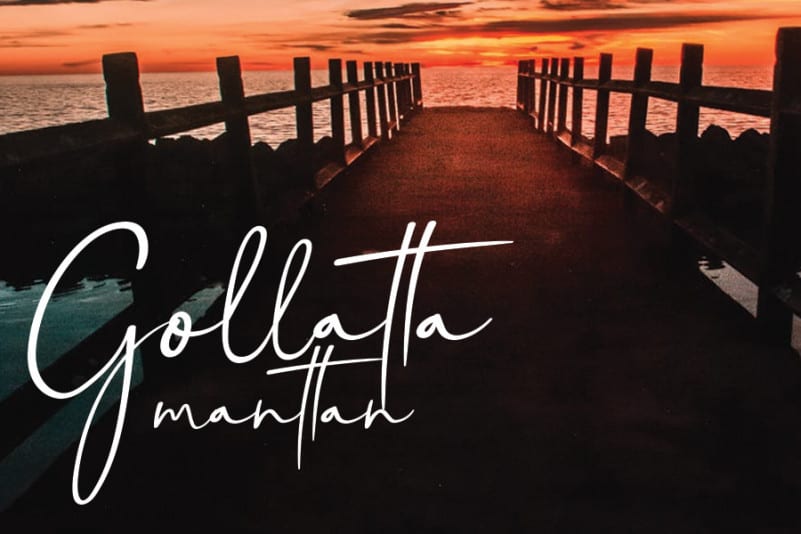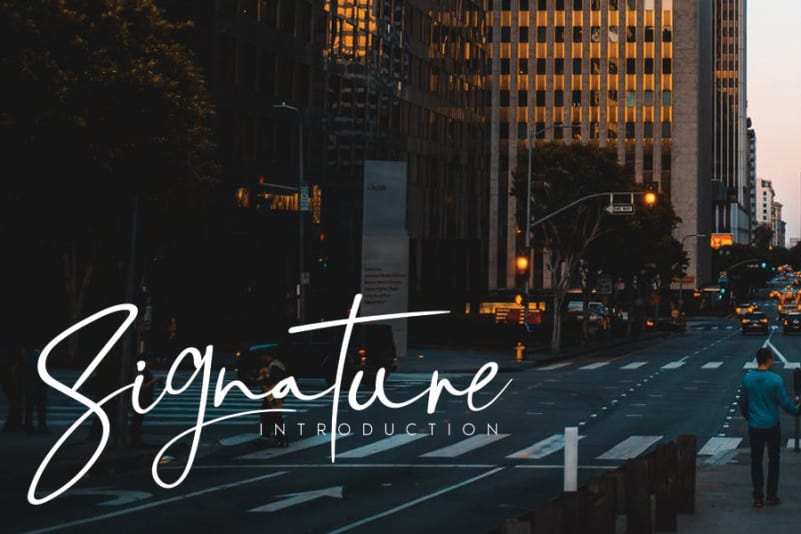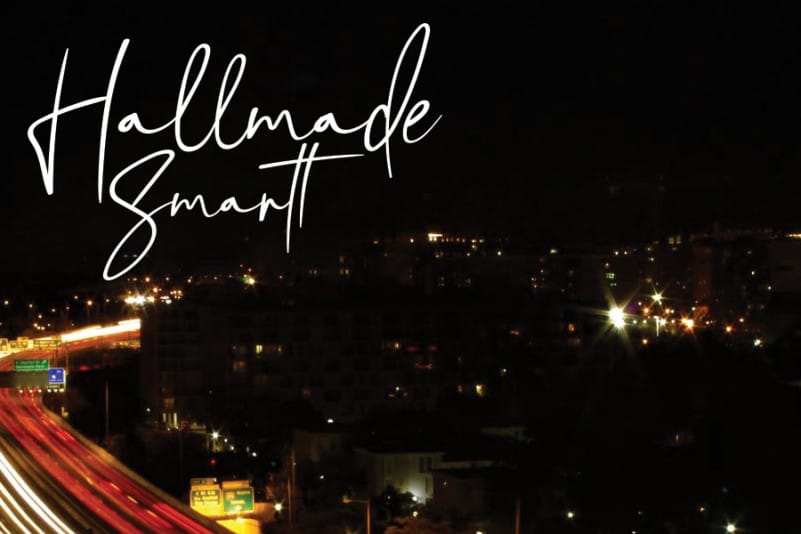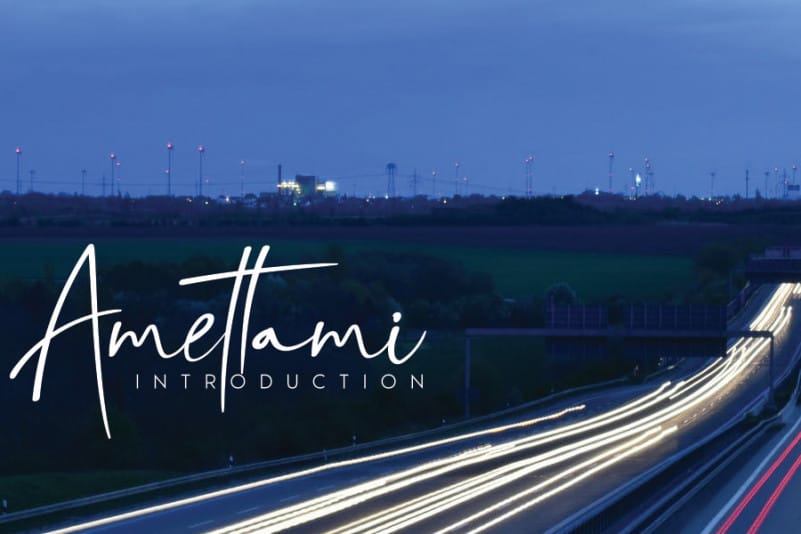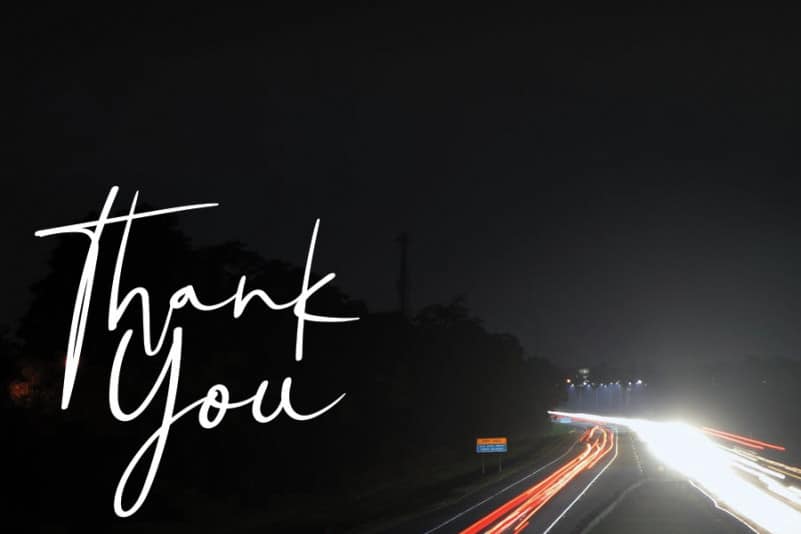
Gollatta manttan Handwritten Font
Gollatta manttan Handwritten Font is a flowing, beautiful handwritten font. It will elevate a wide range of design projects to the highest level, be it branding, headings, wedding designs, invitations, signatures, logos, labels, and much more! Use this gorgeous and unique font to bring any project to life!
The latest style letters are perfect for wall displays, wedding invitations, social media post logos, advertisements, product packaging, product designs, labels, photography, watermarks, invitations, stationery, and any project that requires taste handwriting.